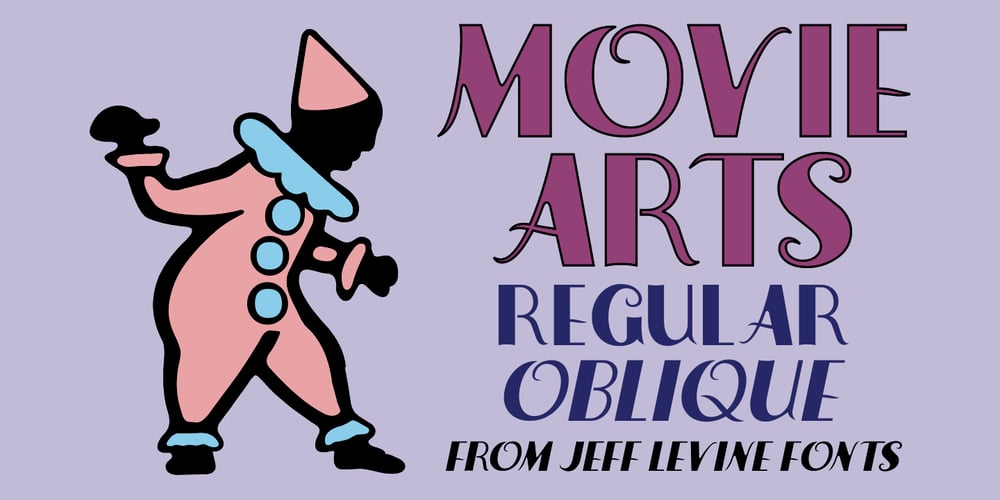
Movie Arts JNL Font Family was designed by Jeff Levine and published by Jeff Levine. Movie Arts JNL contains 2 styles and family package options. In the June 18, 1929 issue of “The Film Daily”, the curvy and casual hand lettering found within the ad for the movie “Such Men are Dangerous” belies that this was actually a pre-code drama. Digitally redrawn as Movie Arts JNL, it is available in both regular and oblique versions.